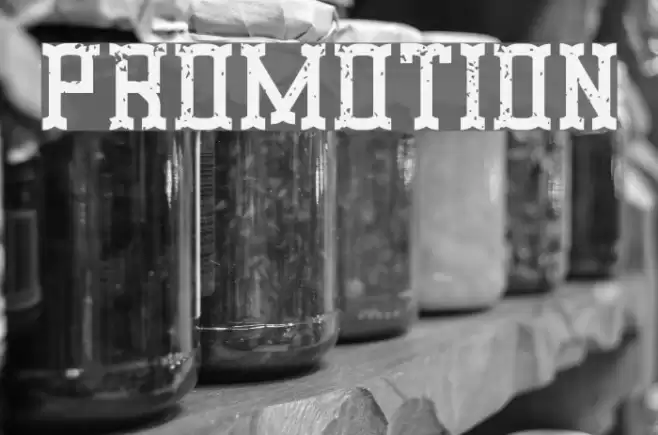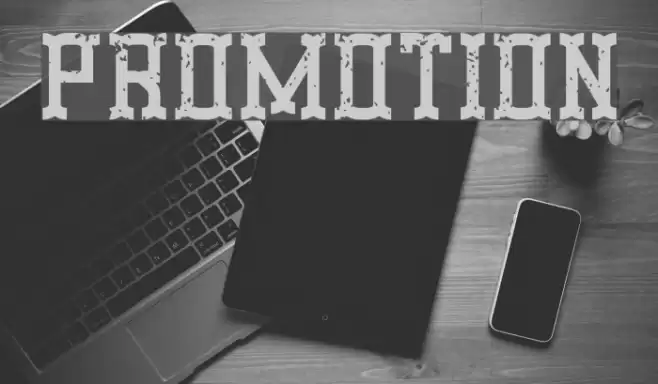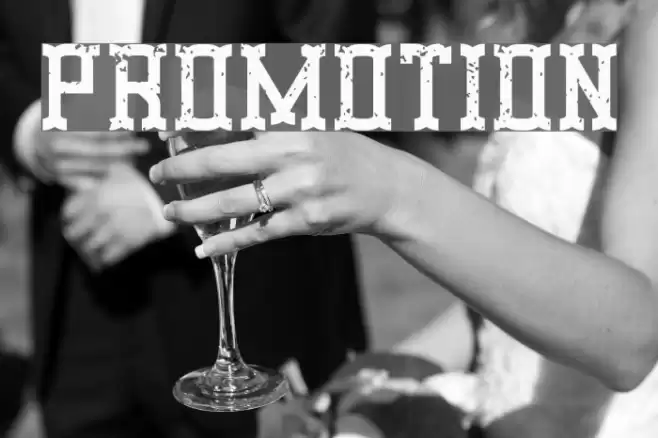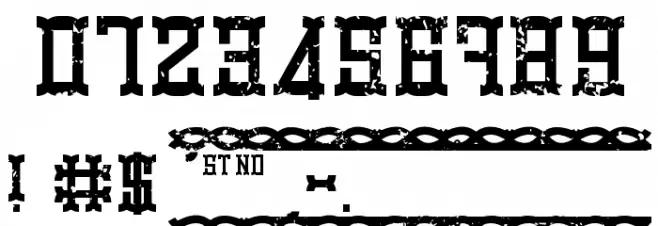
Promotion Font
Promotion Description
This font features a bold, distressed style with a vintage, rugged appearance. The characters are designed with a rough texture, giving them a worn and weathered look. The uppercase letters are prominent and commanding, while the lowercase letters maintain the same distressed aesthetic. The numbers and special characters follow the same design, ensuring consistency across all glyphs. This font is ideal for projects that require a strong, impactful visual presence with a touch of nostalgia or a rustic feel.
A bold, distressed font with a vintage, rugged appearance from Distorted Eroded fonts.
- Proposed Projects: Perfect for posters, album covers, vintage-themed designs, and branding that requires a strong, impactful look.
- Overall Style: Vintage